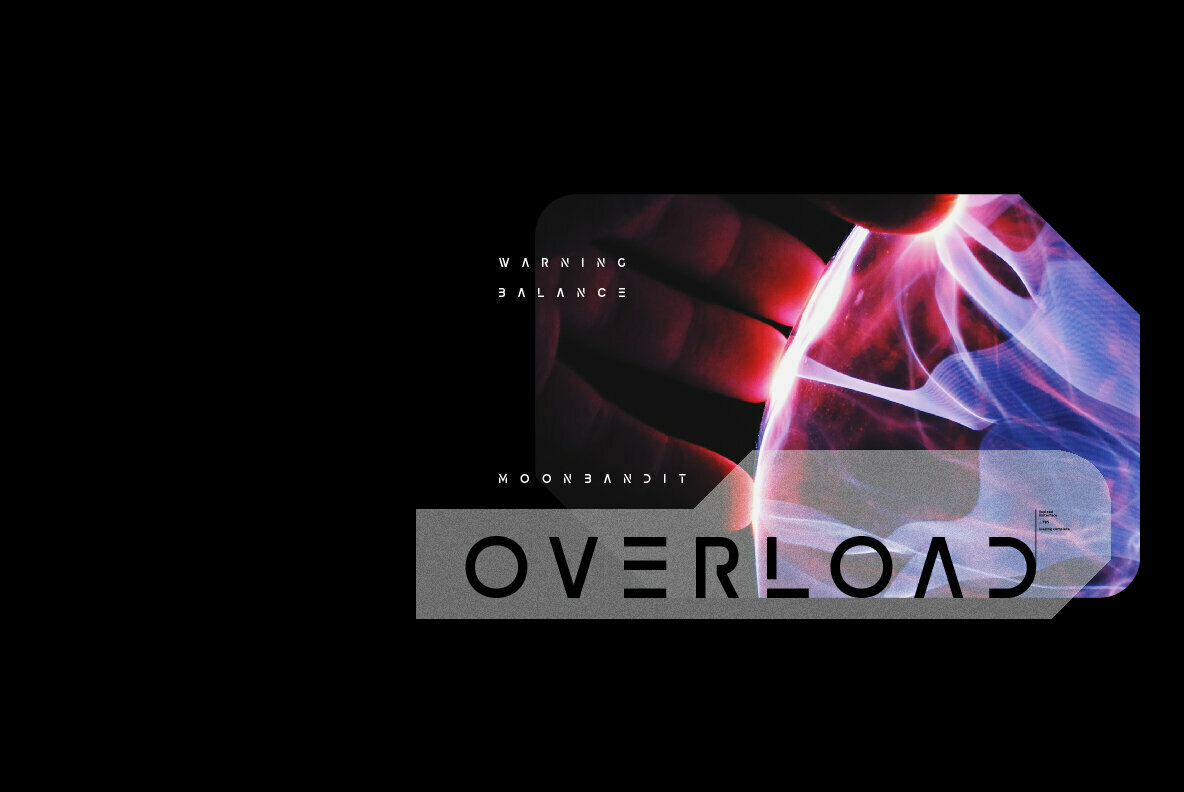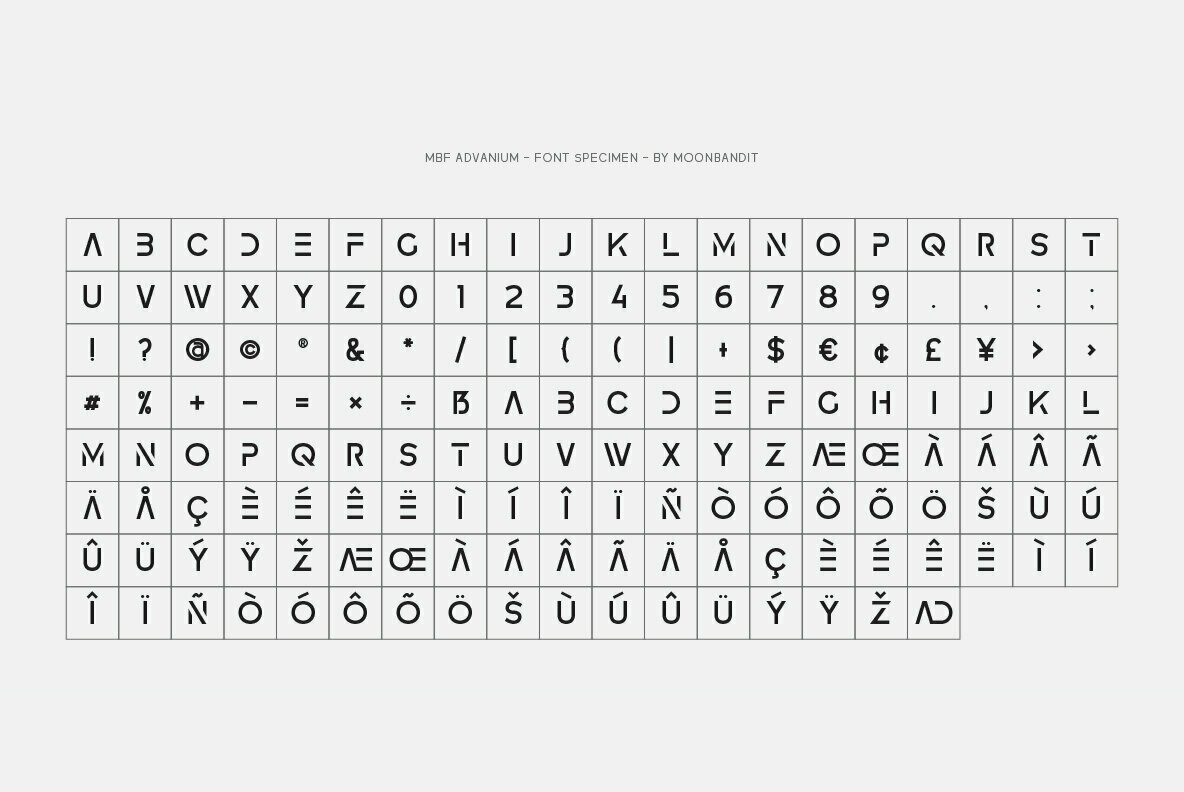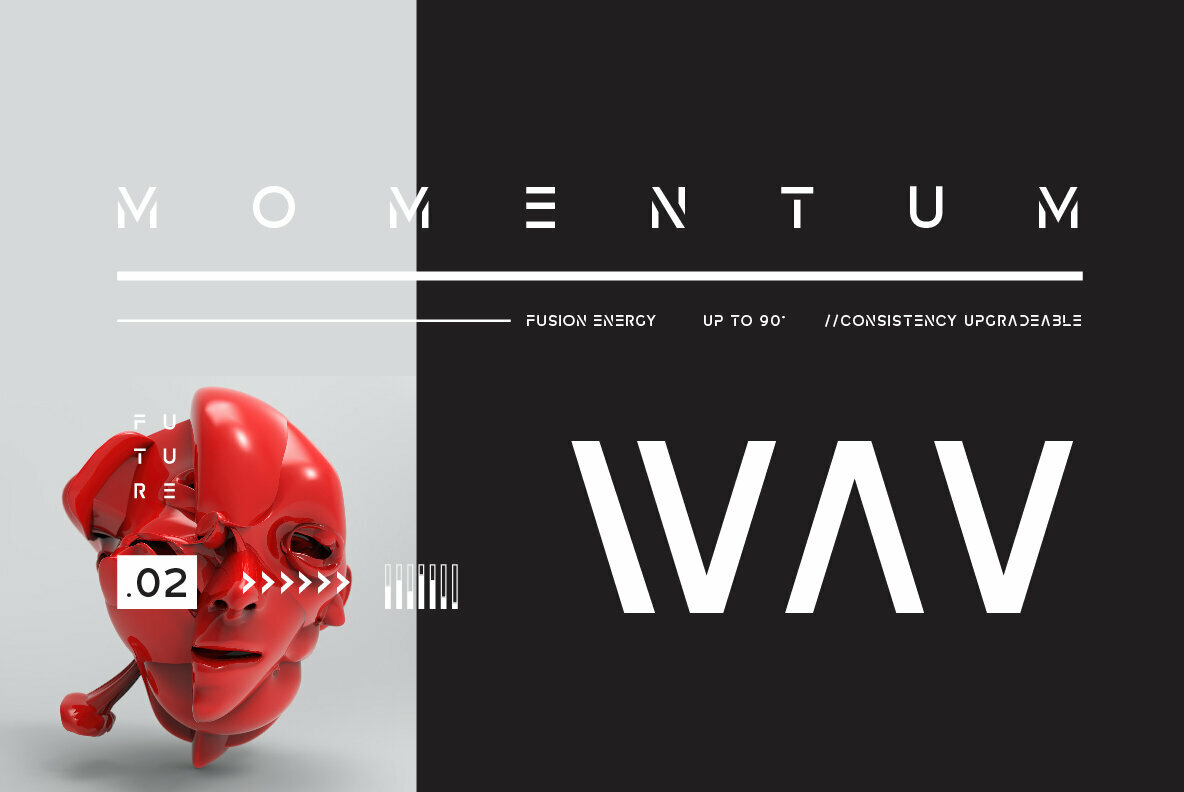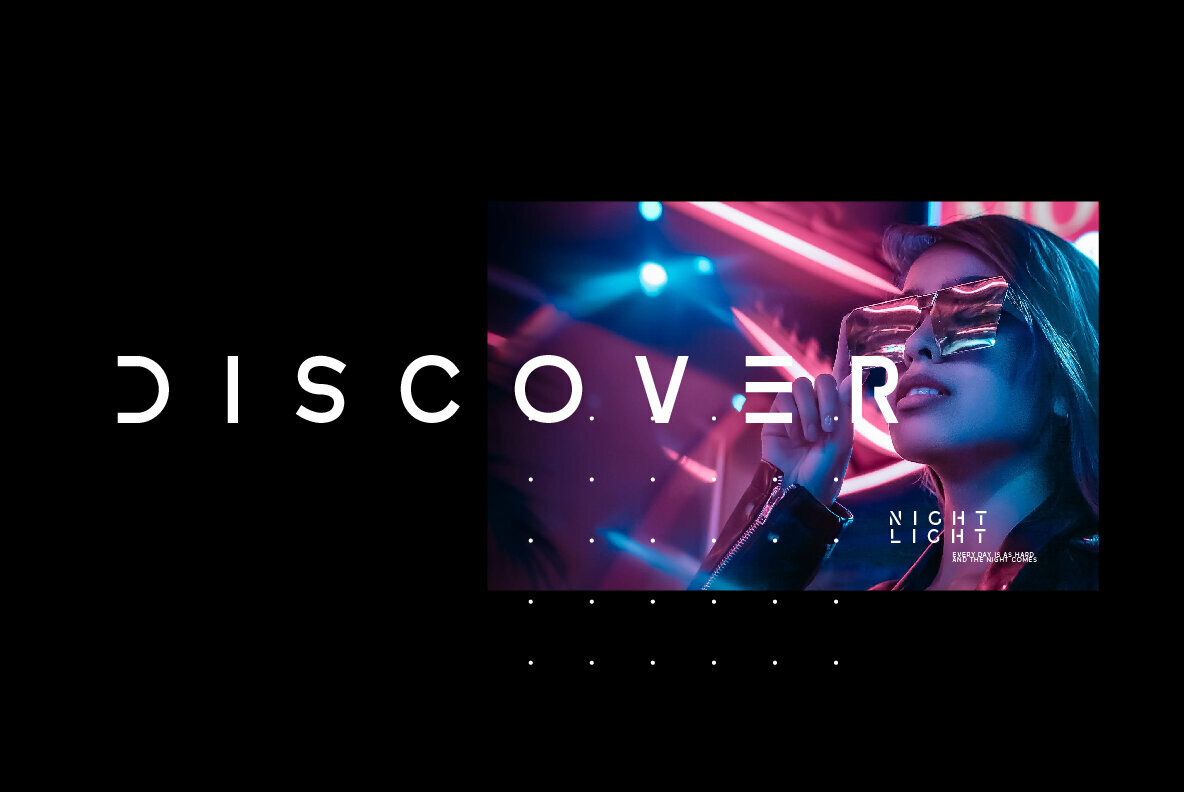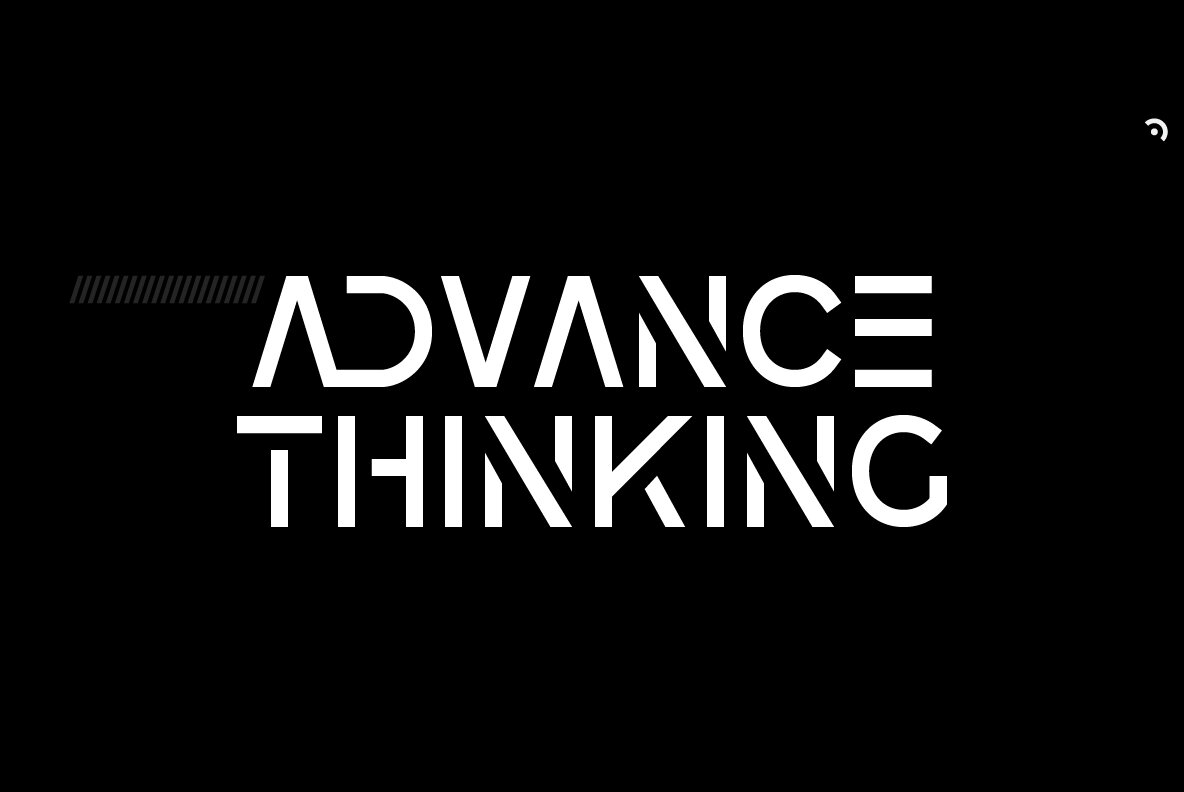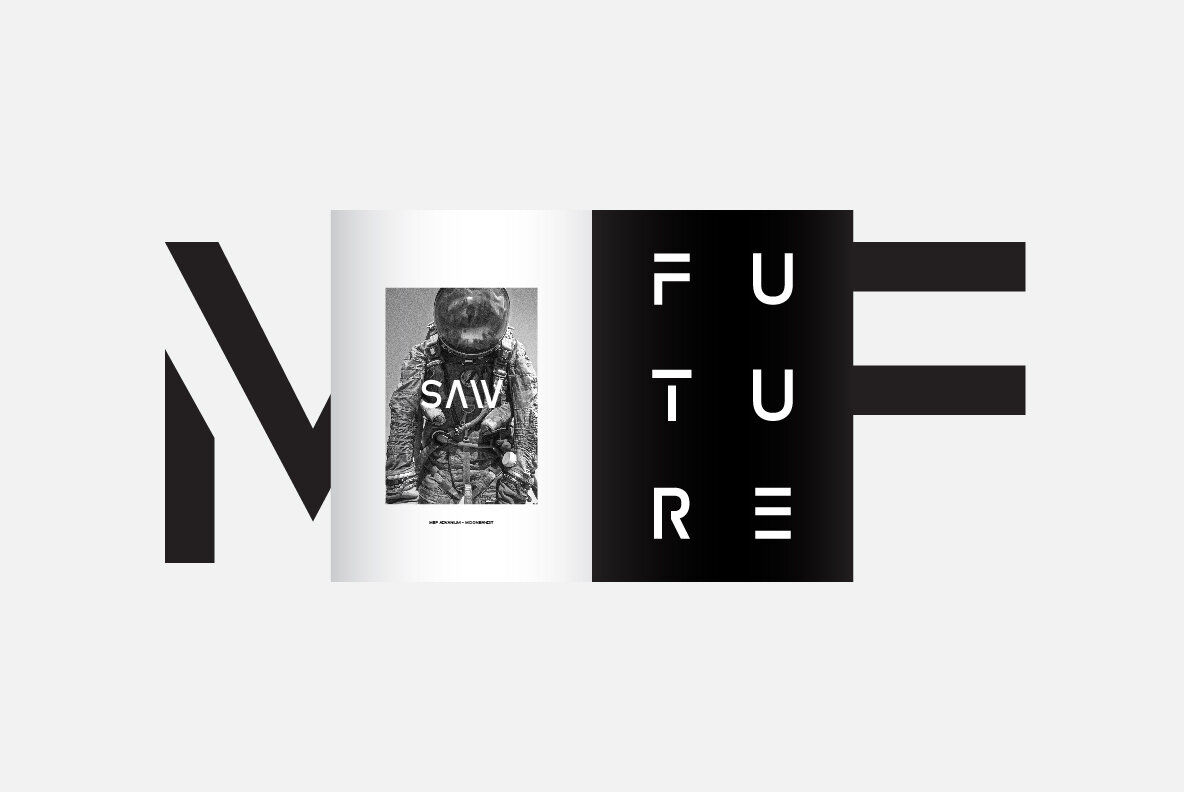
MBF Advanium Font
MBF Advanium
Advanium is an all caps font, built for logo and headlines. This display sans typeface is packed with futuristic sci-fi theme and still leave some room open to any future modification if needed.